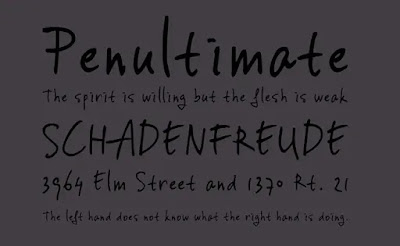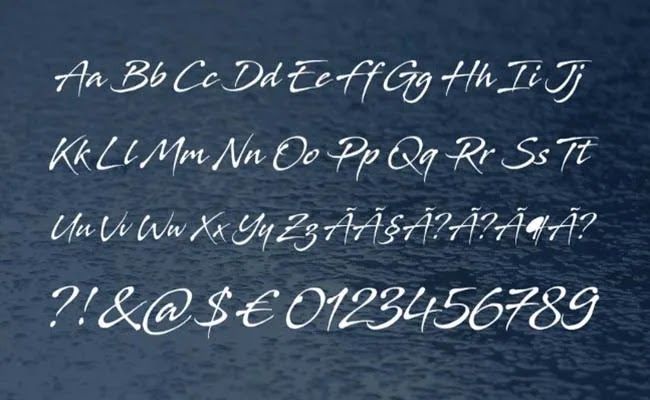
Top 10 Script Fonts
Script Font depend on the shifted and regularly liquid stroke made by handwritten. They are commonly utilized for show or exchange printing, instead of for broadened body massage in the Latin letter set. Some Greek letter set typefaces, particularly generally, have been a closer reenactment of calligraphy.
Yessy Font Family
Yessy Font is a content calligraphy text style that has a sweet and trendy surface. The 7NTypes text style foundry has discharged it just because of October 2018.
This foundry has held by an Indonesian text style planner Mr. Situjuh Nazara. That is the reason he turns into the essential fashioner of this wonderful text style.
It has been practically 1.5 long periods of discharging yet at the same time its interest on the pinnacle. What's more, in excess of 1000 fashioners are downloading it from different destinations all the time.
On account of its one of a kind style, that manually written textual style looks so enchanting which upscale any plan to the following level. Furthermore, to the extent, I think you are here at our site for a similar explanation.
The Simpsons Font Family
The Simpsons Font is a Script Handwritten textual style that contains a magnificent look. It has made by an American originator Mr Dennis Ludlow just because since 2017.
The Elloitsix Font Family
Elliotsix Font is a hand-drawn text style that including a juvenile surface. Fonthead Design Inc. has taken the charge for planning it and discharging it just because since 2009.
This text style foundry has claimed by Mr Elliot Dunham. Along these lines, he turns into the essential architect of this rich text style and he named this textual style on its own name.
The story behind that when the child of Mr Elliot was six-year-old returned home with having worked out total letter sets on a sheet. At that point he chose to change over it on the first textual style document.
Along these lines, presently we can this astonishing creation. Since it believes itself to be a perfect work of art ever. In view of the inclination in the opinion of printed control utilizing this shocking typeface.
Stingray Font Family
Stingray Font is a script handwritten font that comes with stylish letters. A French-based font designer Mr Youssef Habchi took the charge for designing and releasing it for the first time on 2nd May 2018.
Each and every letter including features an advanced design particularly handwritten texture. Therefore, many designers are practising and achieving keen designs needs continuously.
The entire typeface provides a super cool look easy to read whenever. So, you just have a look at the font lettering pictures we affix in here to grasp an opinion.
In case you find that it is not right for you then you can go with another script font family. But if you think it’s different and perfect in every respect then you must use it.
Annabelle Font Family
Annabelle Font is a content text style highlighting a cursive and sleek italic printed courses of action. Mr Jason Walcott is known as the essential fashioner of this rich text style family.
Distributed by his own kind foundry the Walcott Design Studio since 2005. You will concur with the working experience when you feel the feeling of printed power during utilizing this rich creation.
Including some other present-day typefaces like Helvetica, Anurati and so on. It will likewise work in a smooth manner that achieves your objectives in the planning field.
Since you can use this rich typeface for any element or gigantic show-off purposes. Its circumscribed surface can spell charm to any kind of structure definitely.
Jane Austen Font Family
Jane Austen Font is a content calligraphy text style that highlighting the sweet and amazing look. A German female textual style creator Miss. Pia Frauss took the charge for structuring and discharging it on 21 August 2005.
All of the letters including this written by hand typeface highlights first rate rich plan. That offering you to the working ability of its planner applying over it.
Since it's following a uniform standard, significantly refined cylindrical letterforms and sensitive edges that help to improve its introduction.
Simply take a gander at the textual style lettering picture we fasten in here to show signs of improvement thought with respect to how your structure is going to look like in the wake of utilizing it.
Corinthia Font Family
Corinthia Font is a stunning content typeface that streams impeccable associations with delightful bends. Mr Rob Leuschke took the charge for structuring it.